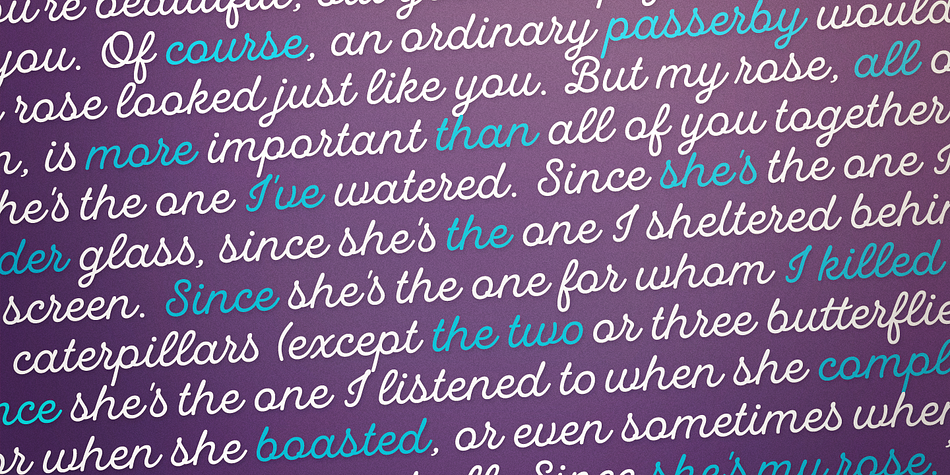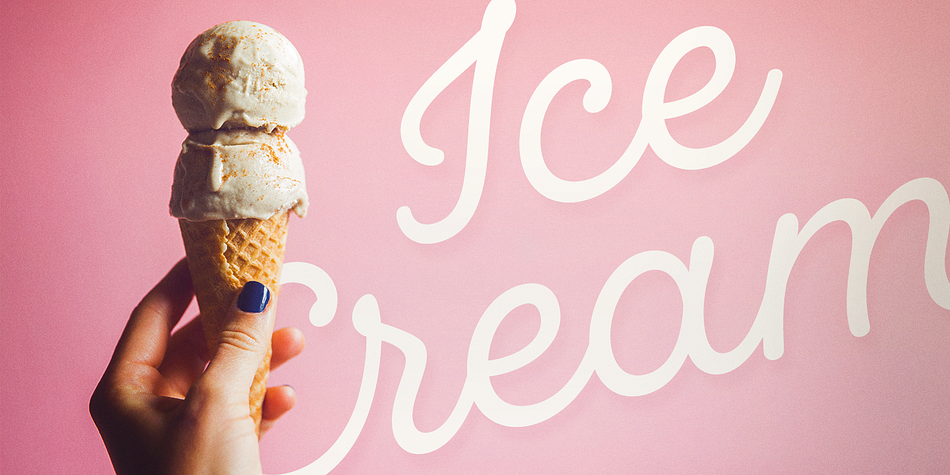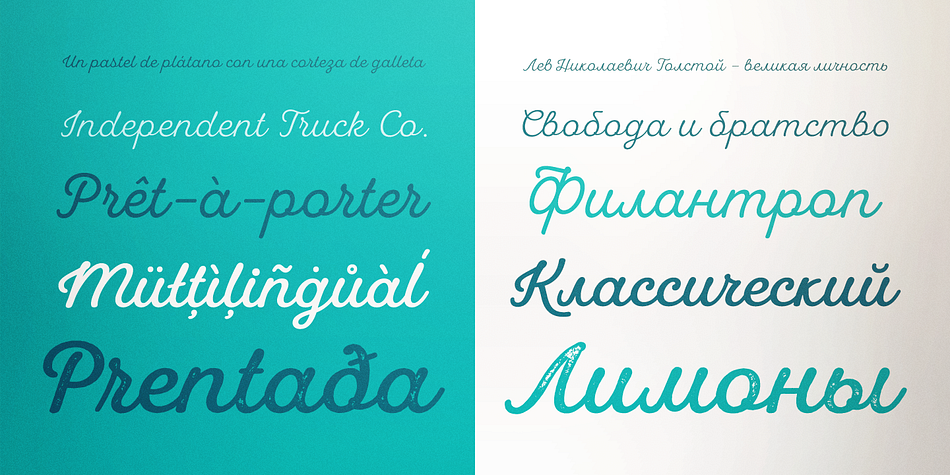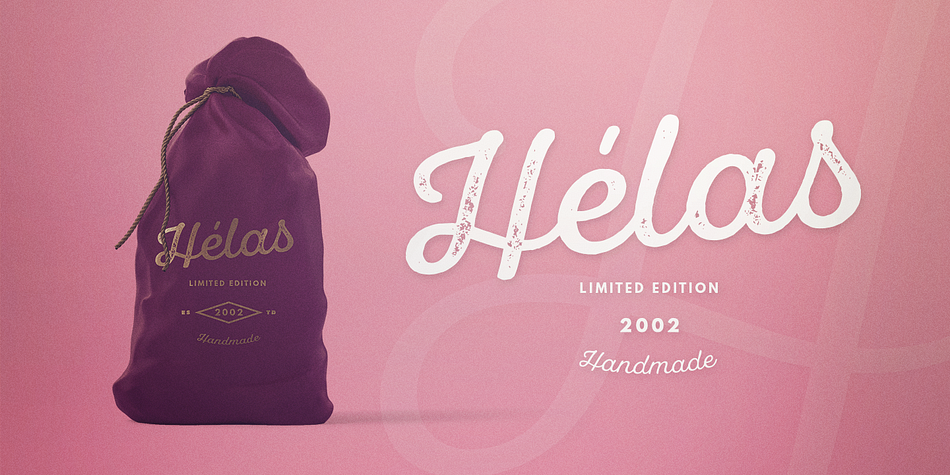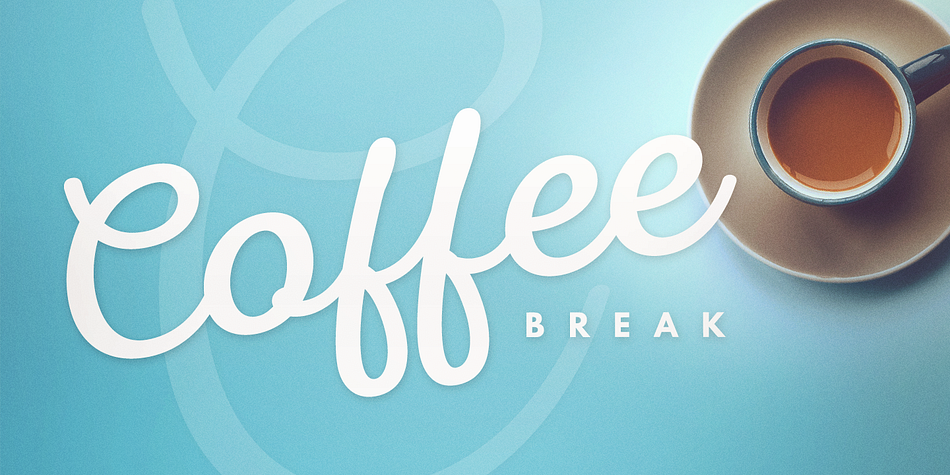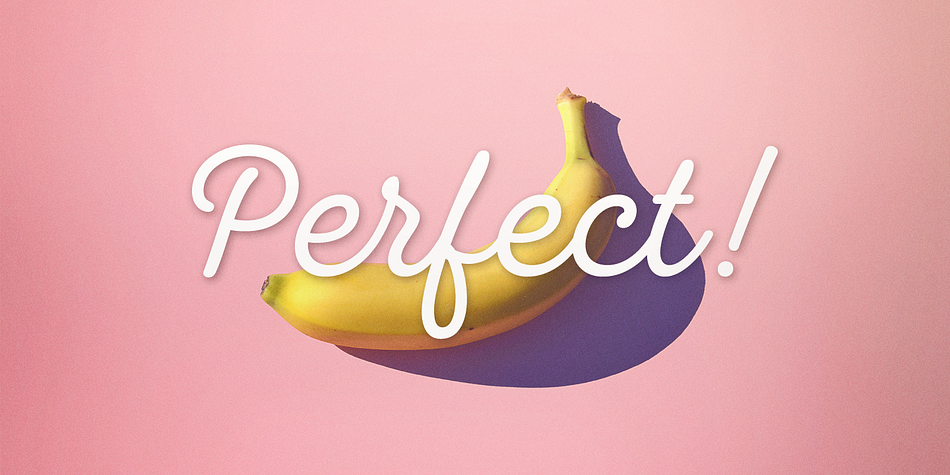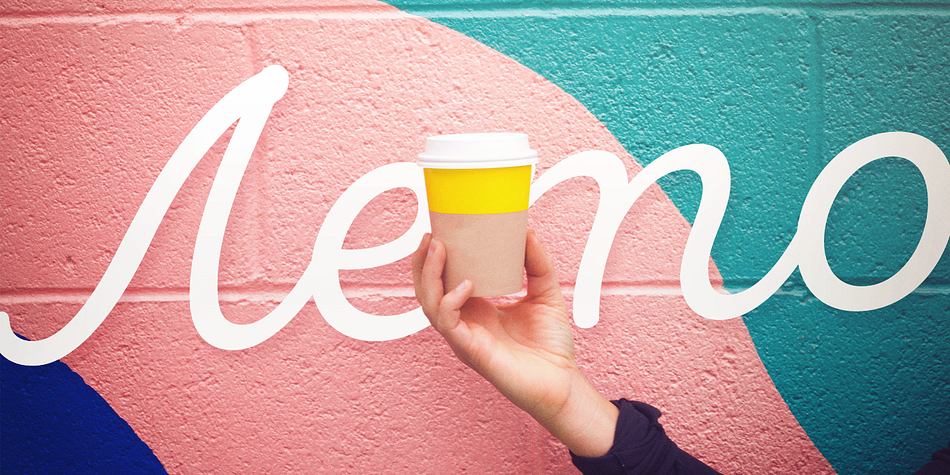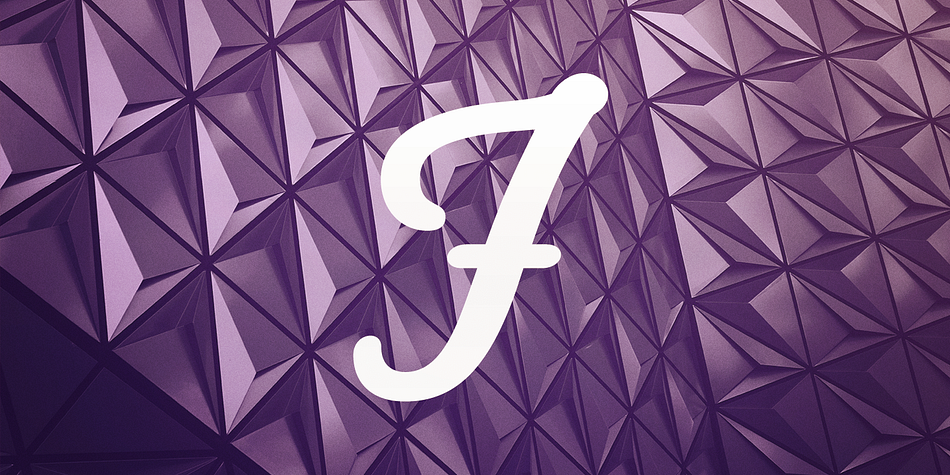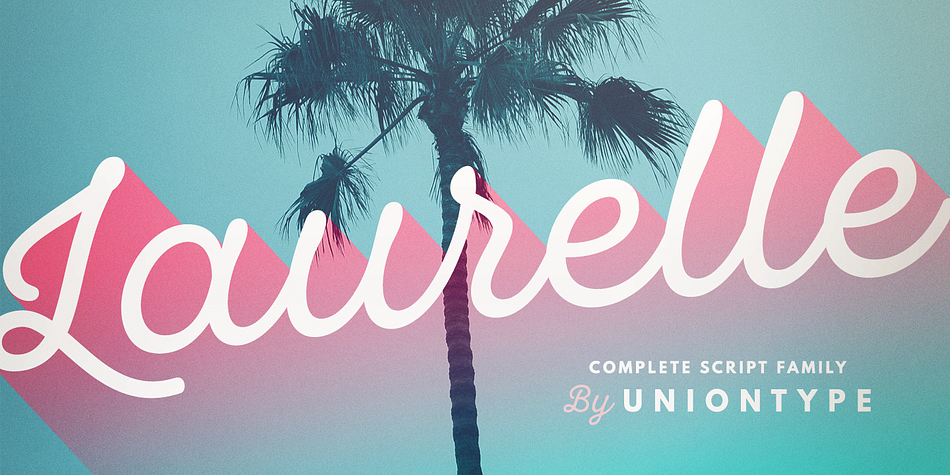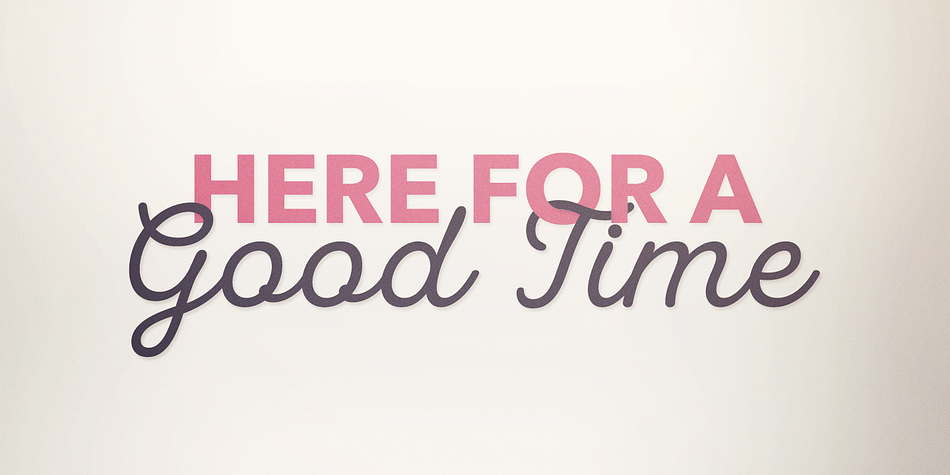
Designed by Roman Avdiushkin, UT Laurelle is a brush script font family. This typeface has four styles and was published by Uniontype.
Laurelle is a polished and smooth script family. The family consists of light, regular, bold and press styles. Laurelle provides advanced typographical support with contextual alternates, final forms, ligatures and swashes. This font also includes Cyrillic, with all OpenType features.
It is most suitable for the headlines of all sizes, as well as for the text blocks. Laurelle is versatile and can be used on cards, posters, merchandise, book covers, websites, packaging, and basically anywhere you like. The overall feel of the font is warm, elegant and informal and it is perfect if you want to convey a sense of friendliness and style.